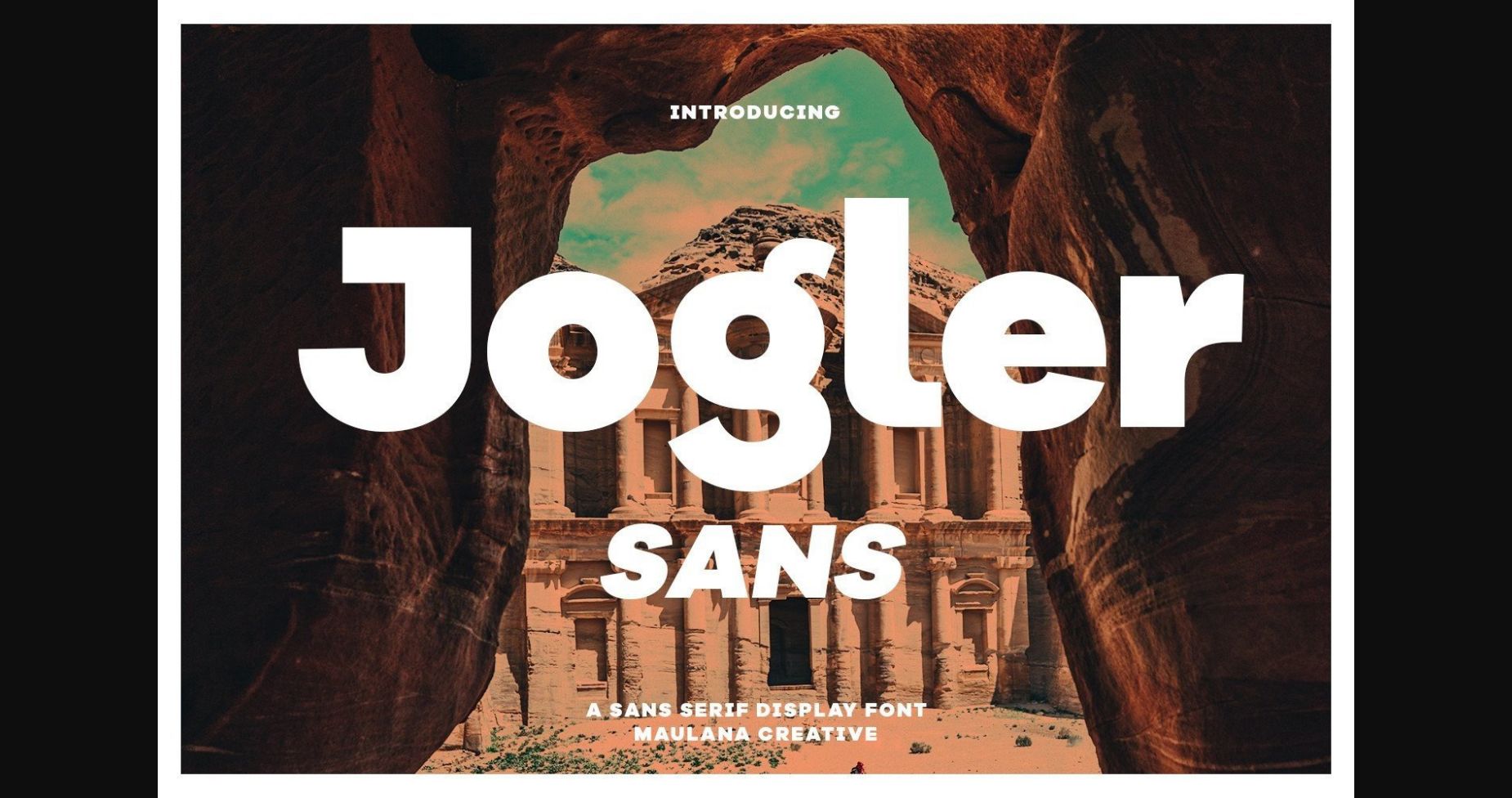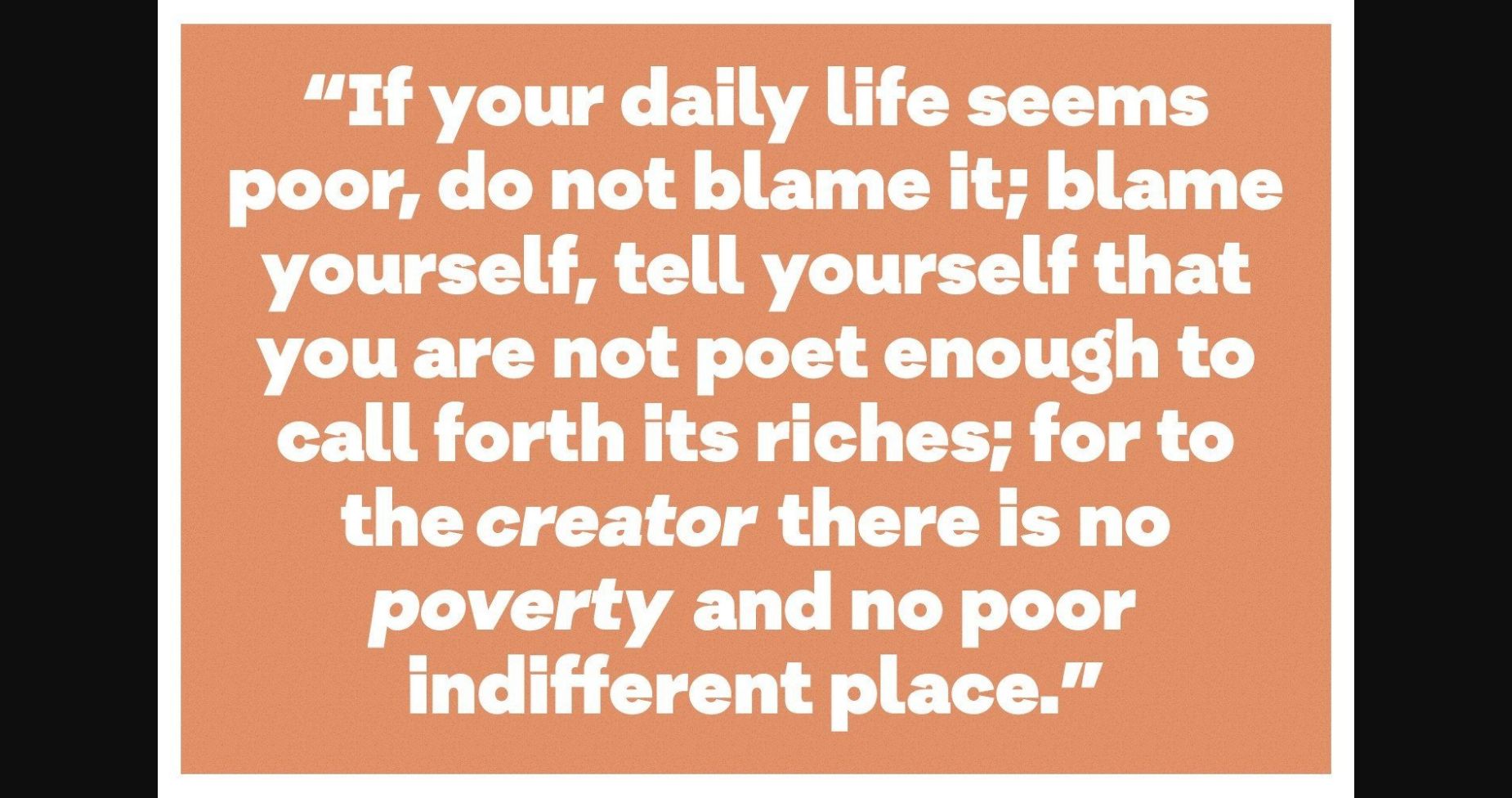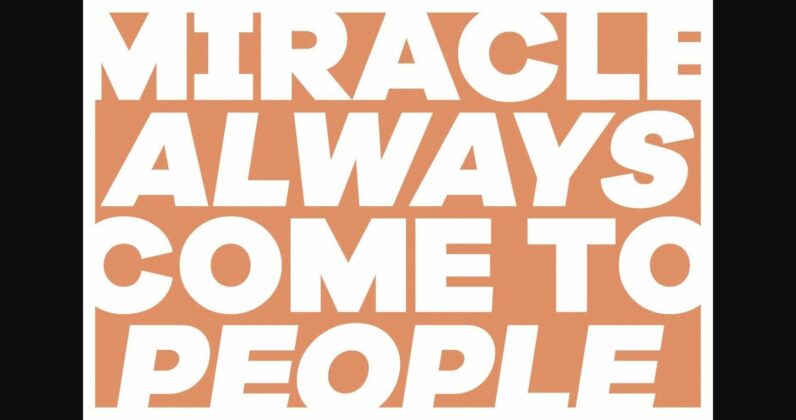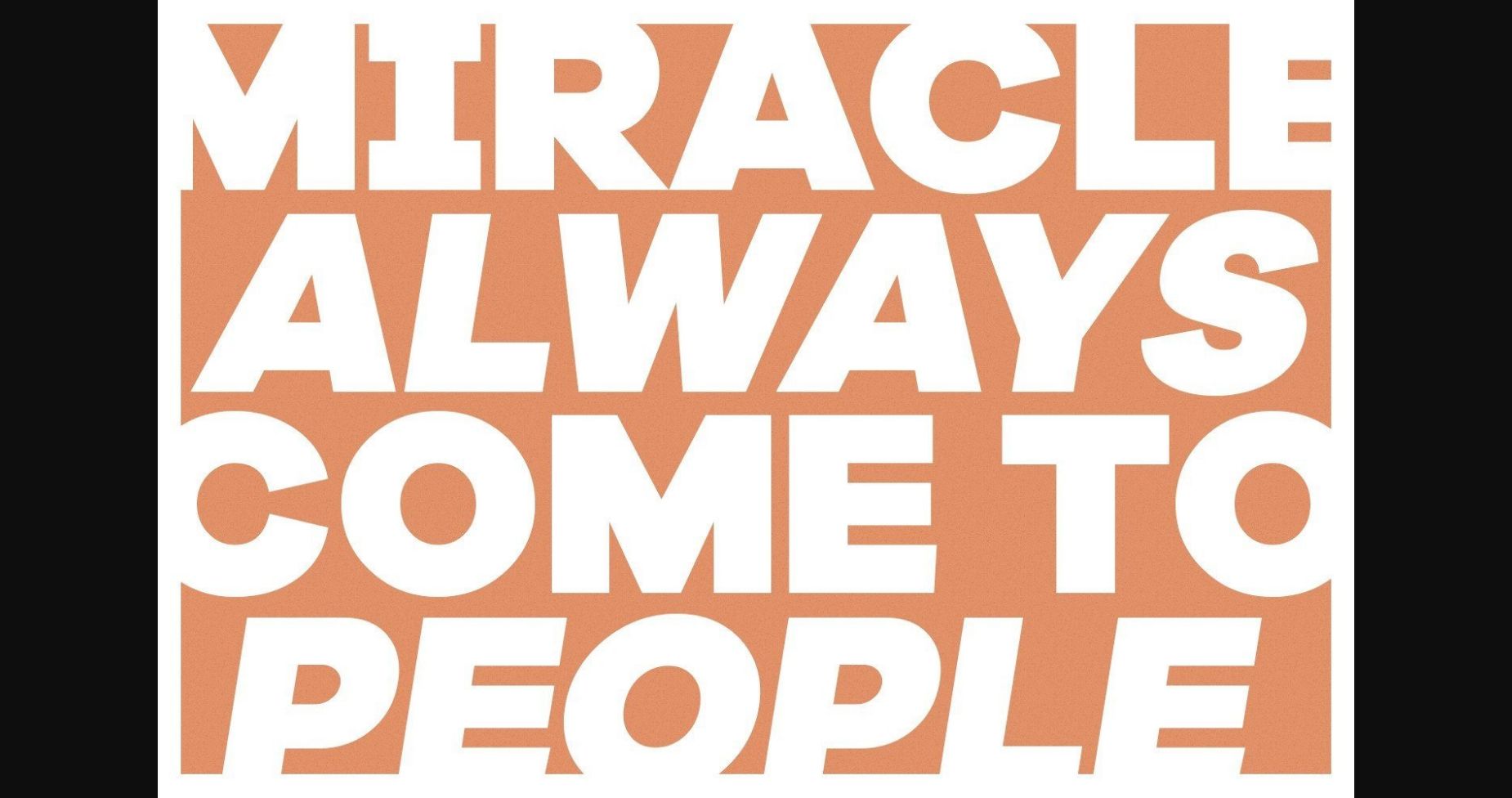
Jogler Font
About Jogler Font
Jogler is a modern, bold but elegant sans serif font. Fall in love with it and bring your projects to the highest levels!